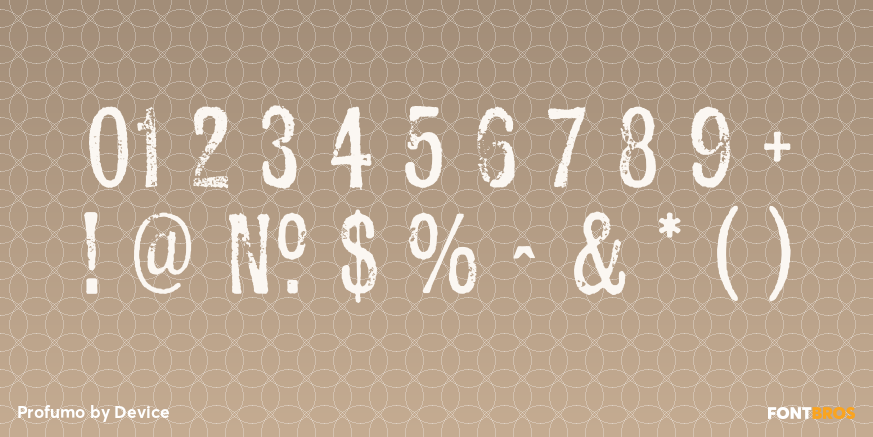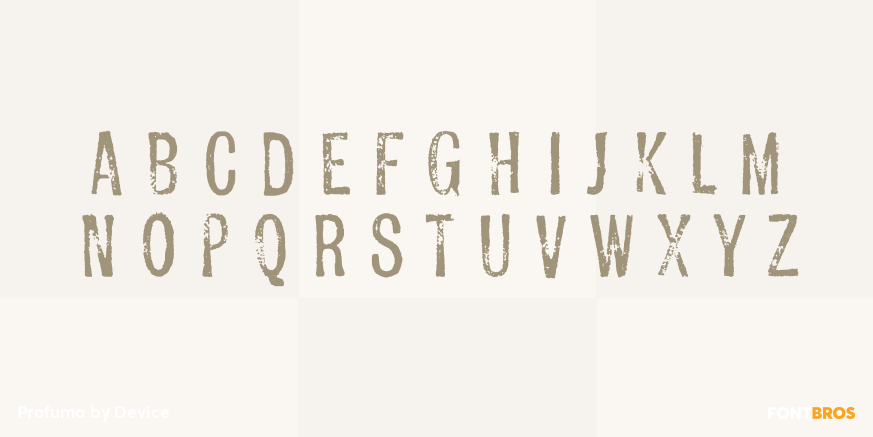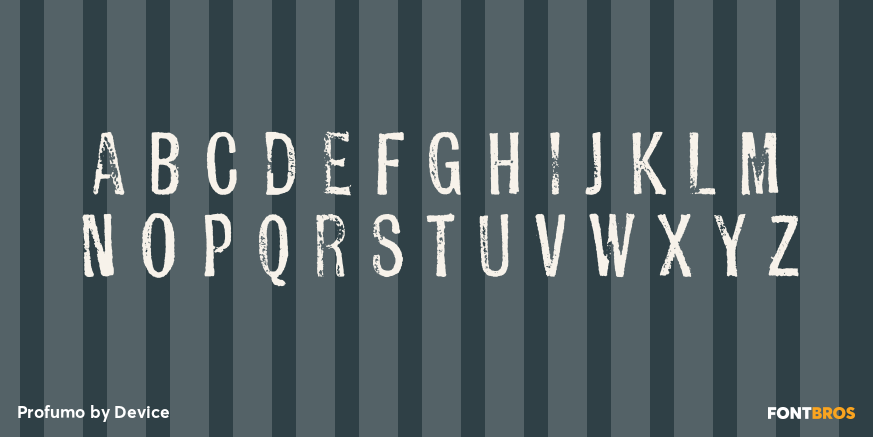
Profumo
Font Family by Device
Profumo evokes the rubber 'top secret? stamps found on files in government vaults and under the beds of double-agents? mistresses.
The font was produced by scanning in inky impressions from vintage rubber letters - dozens of prints were made, and the most interesting selected.